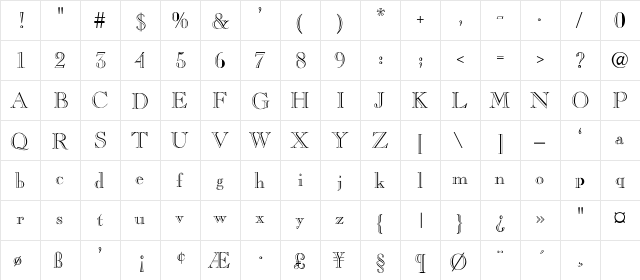
CASLONOPENFACE-Thin Regular
CASLONOPENFACE-Thin is a composed and adaptable typeface that performs quietly and consistently across a wide range of design contexts. Its slender proportions lend an understated elegance to any composition.